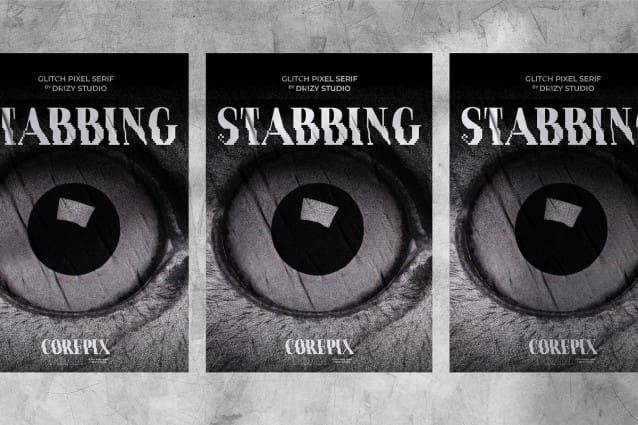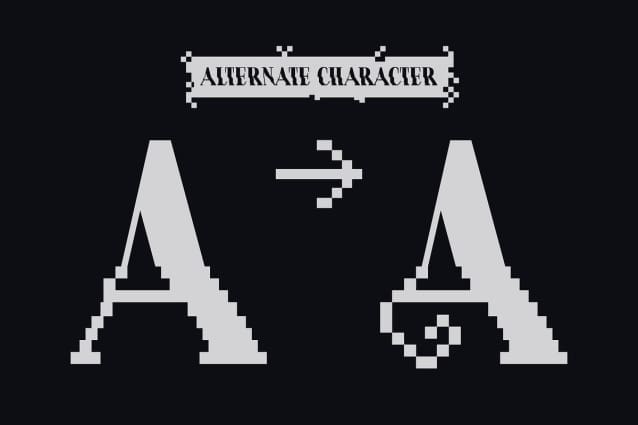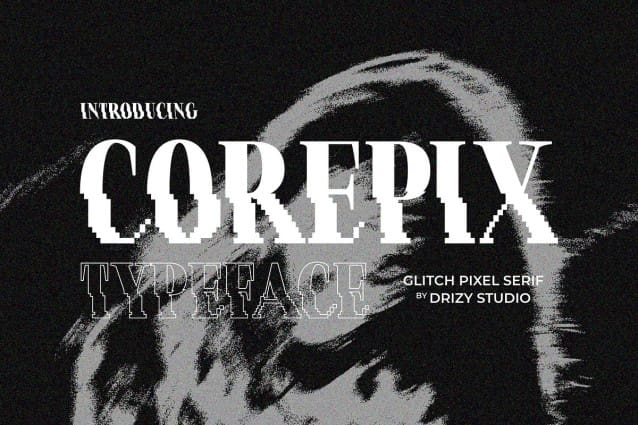
Corepix Glitch Pixel Font
Corepix Glitch Pixel Font a cutting-edge and visually striking typeface that seamlessly combines the classic elegance of a serif font with a modern twist of glitchy pixel aesthetics. This Collide – Experimental results in a font that stands out, making it perfect for projects that demand a bold and contemporary look.